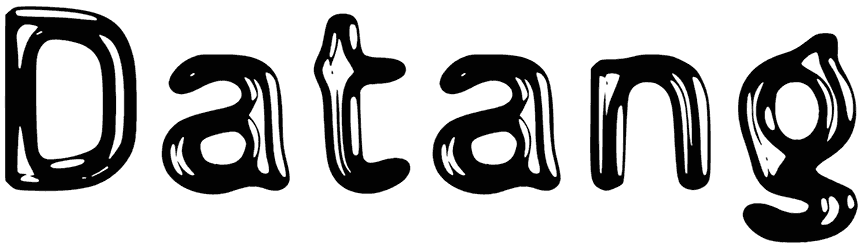
d Datang Font
The d Datang font is a fancy, watery font with a distinctive and playful appearance. It is a watercolor font that can be used for a variety of design projects, such as invitations, posters, and advertisements.